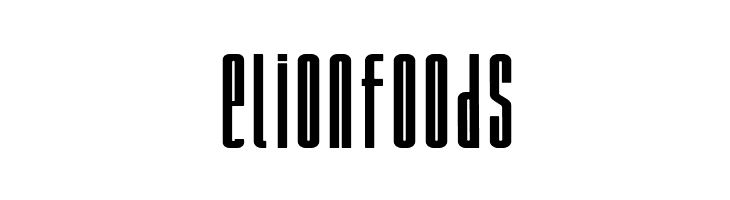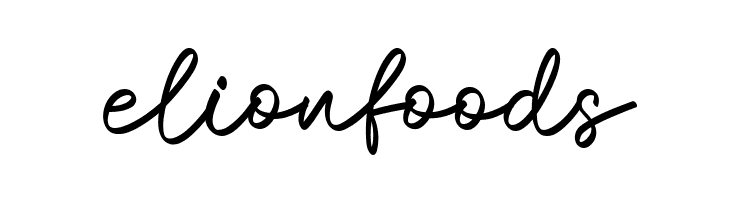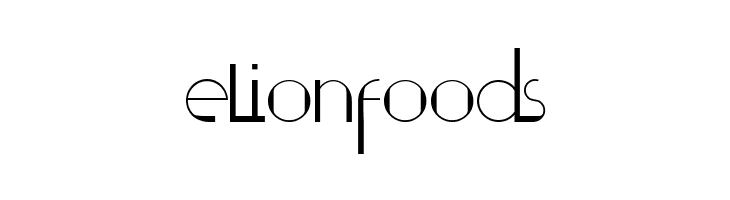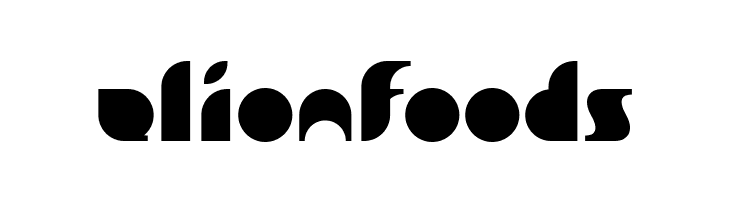
A bold, artistic font with thick, rounded strokes and unique cutouts.
Bold, decorative fonts ideal for sale and promotional graphics.
A bold, condensed font with high contrast and a modern style.
A lively, flowing script font with elegant cursive letterforms.
A clean, modern sans-serif font with consistent stroke width and balanced spacing.
A bold, vintage-style font with a distressed, eerie aesthetic.
A modern, geometric font with sleek lines and a minimalist aesthetic.
A modern geometric font with sharp angles and smooth curves, ideal for stylish projects.
A dynamic, handwritten script with fluid, elongated characters.
A casual, elegant handwritten font with elongated, fluid strokes.